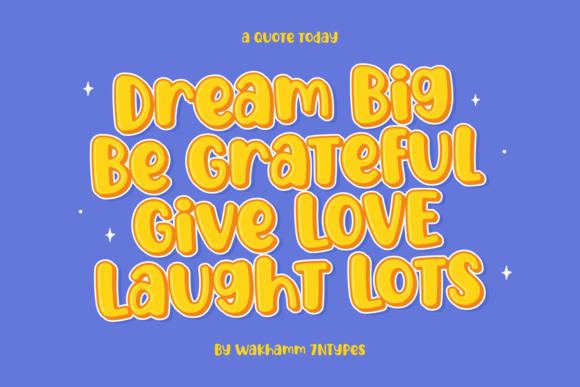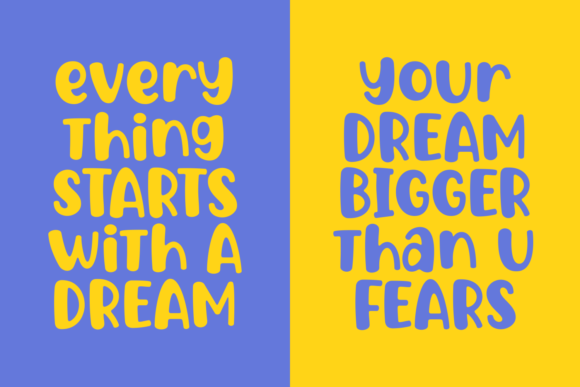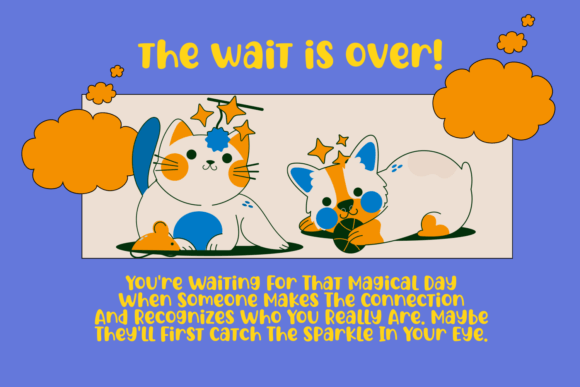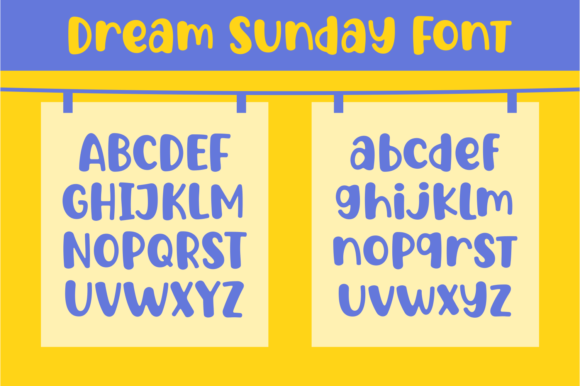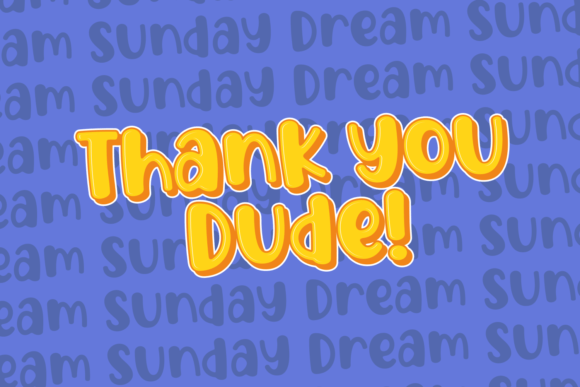
Dream Sunday Font: The Perfect Choice for Your Creative Projects
Are you a designer or crafter looking for a font that can add a touch of playfulness and style to your projects? Look no further than the Dream Sunday font. This modern font is designed to bring a youthful spirit to your designs, making it perfect for a wide range of creative projects.
What is Dream Sunday Font?
Dream Sunday font is a stylish and playful font that is designed to be versatile and easy to use. Its unique design makes it suitable for both professional-looking projects and casual designs. Whether you’re working on a branding design, label, website, business card, packaging, poster, flyer, quote, social media post, invitation, or special occasion card, Dream Sunday font is the perfect choice.
Key Features of Dream Sunday Font
Dream Sunday font has several key features that make it stand out from other fonts. Some of its notable features include:
- Playful and Stylish Design: Dream Sunday font has a unique and playful design that adds a touch of style to any project.
- Youthful Spirit: The font has a youthful spirit that makes it perfect for designs that require a fresh and modern look.
- Versatile: Dream Sunday font is versatile and can be used for both professional-looking projects and casual designs.
Uses of Dream Sunday Font
Dream Sunday font can be used for a wide range of creative projects, including:
- Branding Designs: Use Dream Sunday font to create unique and stylish branding designs that reflect your brand’s personality.
- Labels: Create eye-catching labels for your products or services using Dream Sunday font.
- Websites: Add a touch of playfulness and style to your website with Dream Sunday font.
- Business Cards: Create professional-looking business cards with Dream Sunday font.
- Packaging: Use Dream Sunday font to create stylish and eye-catching packaging for your products.
- Posters: Create bold and eye-catching posters with Dream Sunday font.
- Flyers: Use Dream Sunday font to create flyers that grab attention.
- Quotes: Add a touch of style to your quotes with Dream Sunday font.
- Social Media Posts: Use Dream Sunday font to create eye-catching social media posts.
- Invitations: Create stylish and playful invitations with Dream Sunday font.
- Special Occasions Cards: Use Dream Sunday font to create special occasion cards, such as birthday cards, wedding cards, and more.
Why Choose Dream Sunday Font?
There are several reasons why you should choose Dream Sunday font for your creative projects. Some of the reasons include:
- Unique Design: Dream Sunday font has a unique design that sets it apart from other fonts.
- Versatility: The font is versatile and can be used for a wide range of creative projects.
- Playful and Stylish: The font has a playful and stylish design that adds a touch of personality to any project.
In conclusion, Dream Sunday font is a versatile and stylish font that is perfect for a wide range of creative projects. Its playful and youthful design makes it ideal for designs that require a fresh and modern look. With its ease of use and unique design, Dream Sunday font is a great choice for designers and crafters looking to add a touch of personality to their projects.